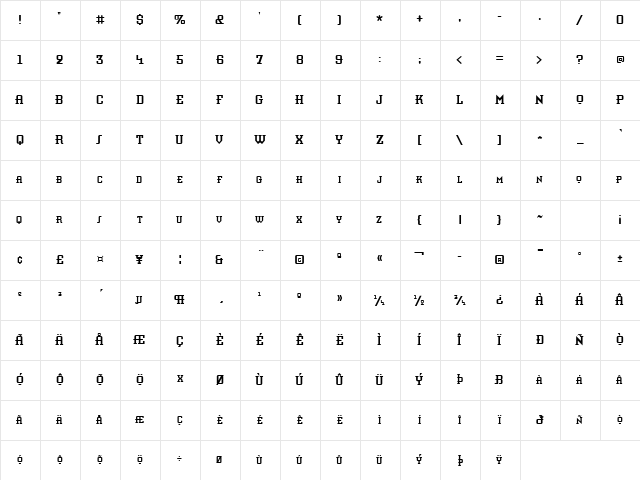
Complete Knomen Condensed Regular glyph index. Displaying only characters natively supported by Knomen Condensed Regular font.
Knomen Condensed is a composed and adaptable typeface that performs quietly and consistently across a wide range of design contexts. Its narrow stance lets it pack a punch even in space-constrained designs.